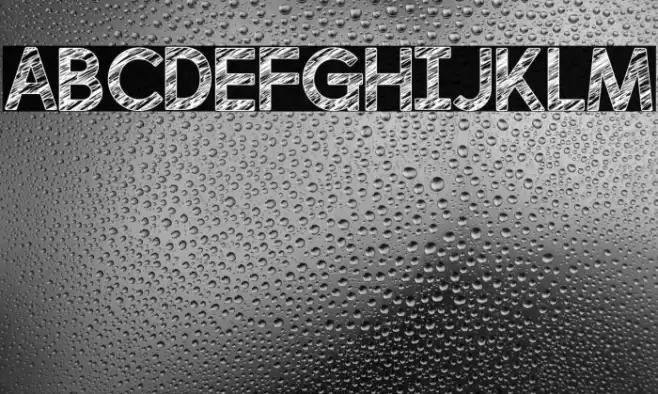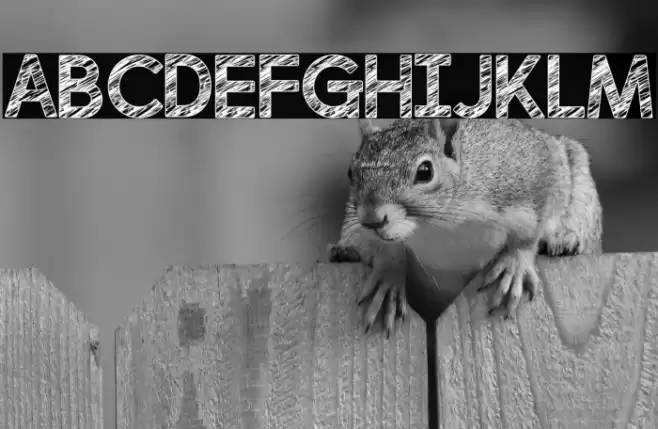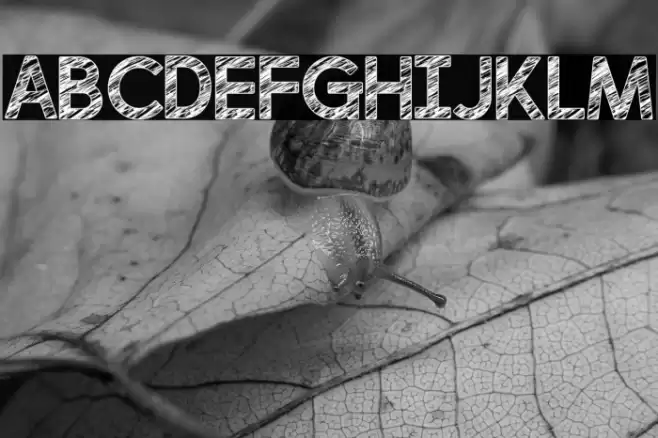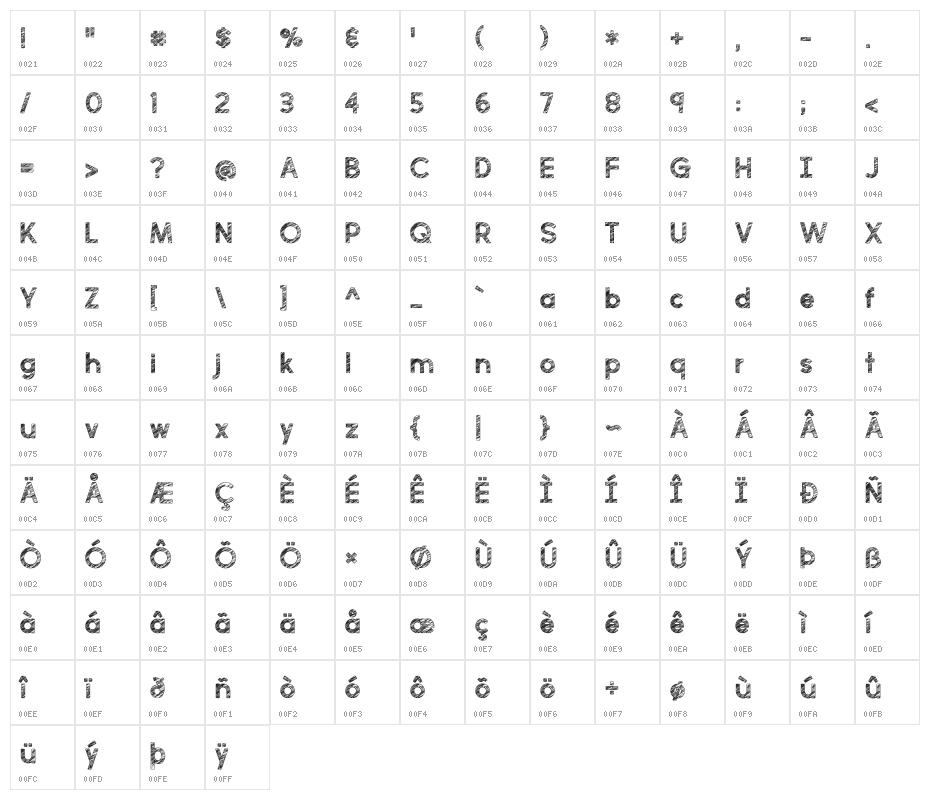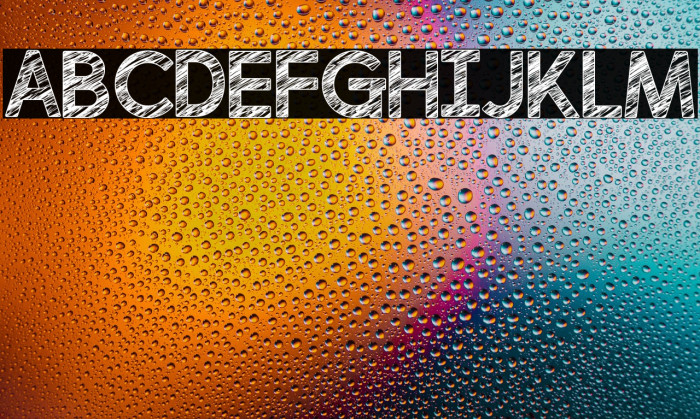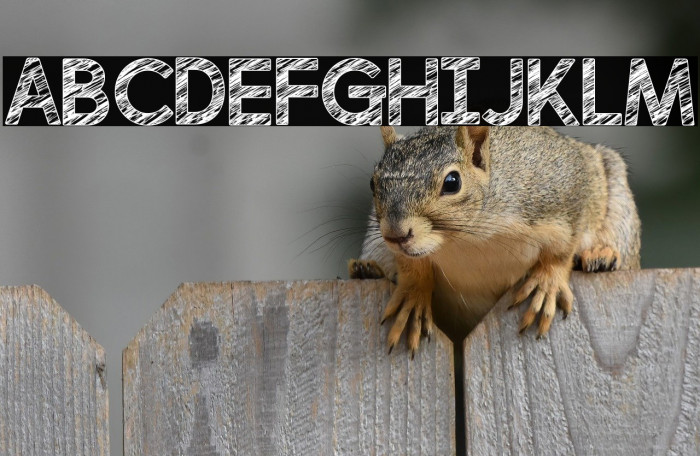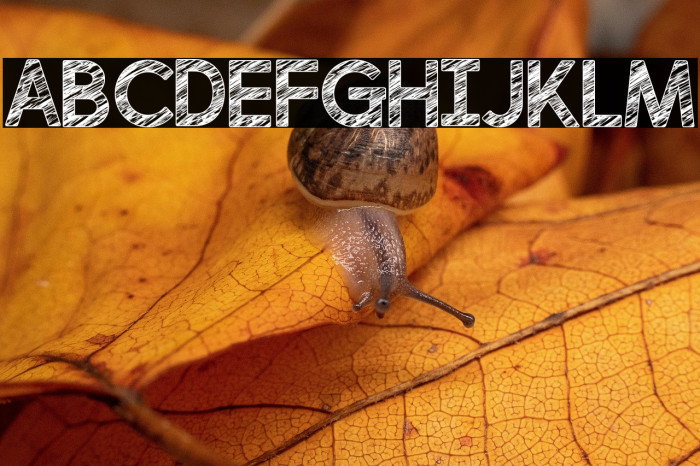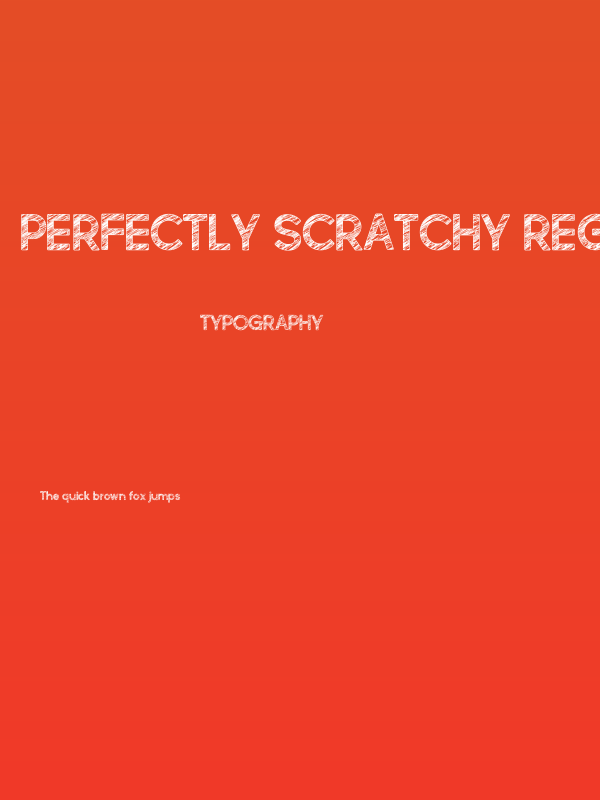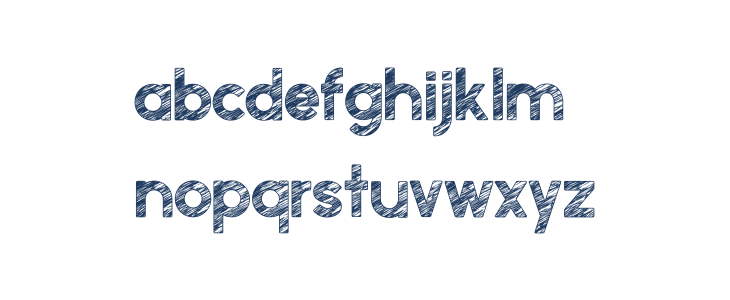
perfectly scratchy Regular Font
perfectly scratchy Regular Description
This font features a unique, hand-drawn style with a scratchy texture that gives it a playful and informal appearance. The characters are bold and have a consistent thickness, creating a strong visual impact. The uppercase and lowercase letters maintain a uniform design, while the numbers and special characters complement the overall aesthetic. The scratchy texture adds a sense of movement and dynamism, making it suitable for creative and artistic projects.
A bold, scratchy, hand-drawn font with a playful texture from Uncategorized fonts.
- Proposed Projects: Ideal for posters, children's books, creative branding, and artistic designs.